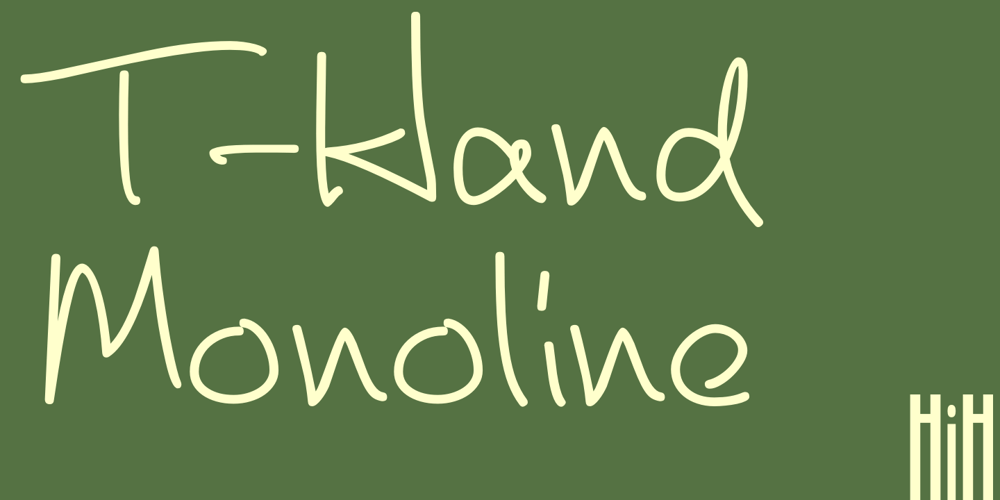
T-Hand Monoline Font Family was designed by Tom Wallace and published by HiH. T-Hand Monoline contains 3 styles and family package options. T-Hand Monoline is an idiosyncratic semi-script that combines forms from both script and printing in a manner the defies logical explanation. It’s just the way I print. I like the way it looks. Nothing whatever should be inferred from the fact that idiosyncratic and idiot start with the same four letters. So does idiom. This is a three-font package of light, regular and bold for a very attractive price.